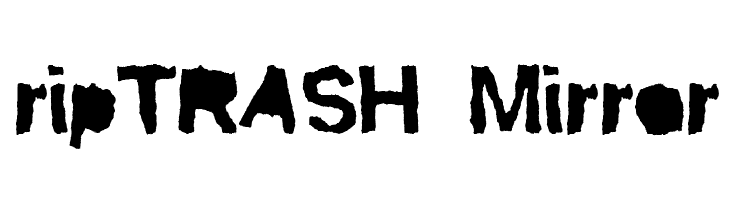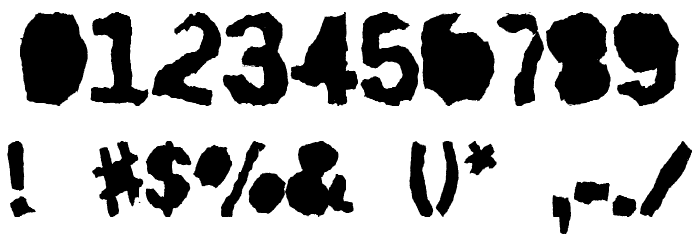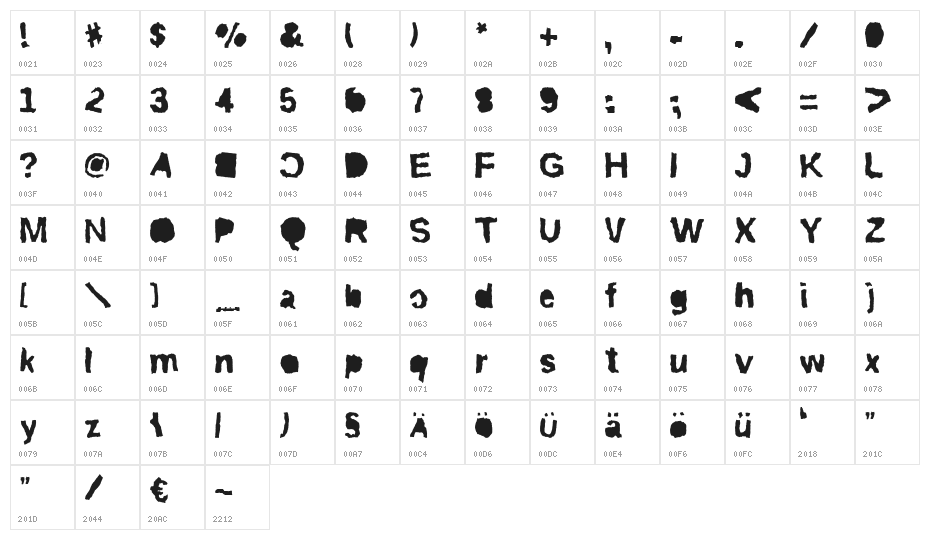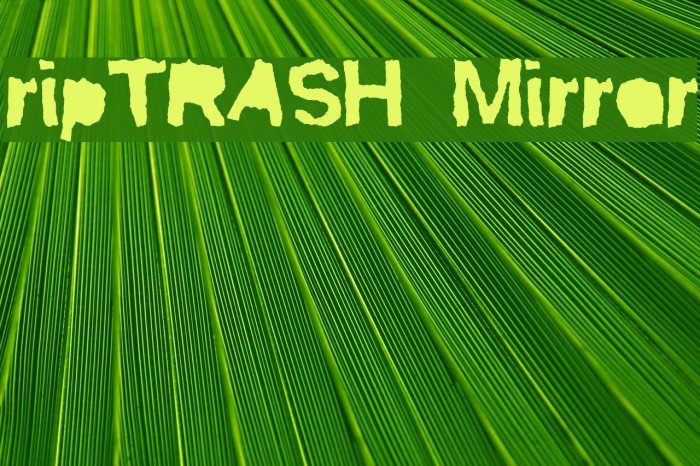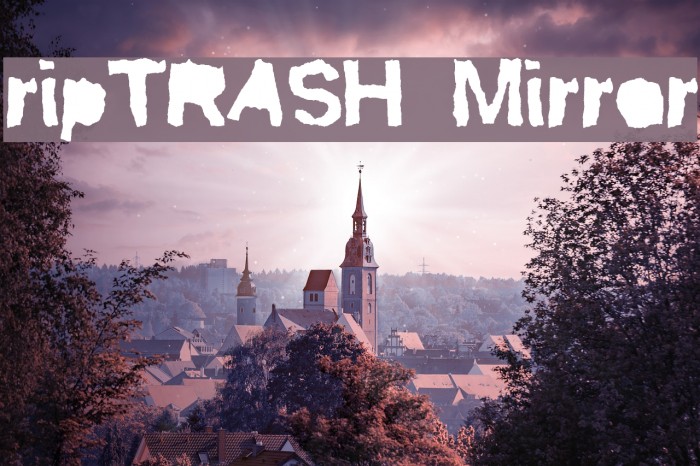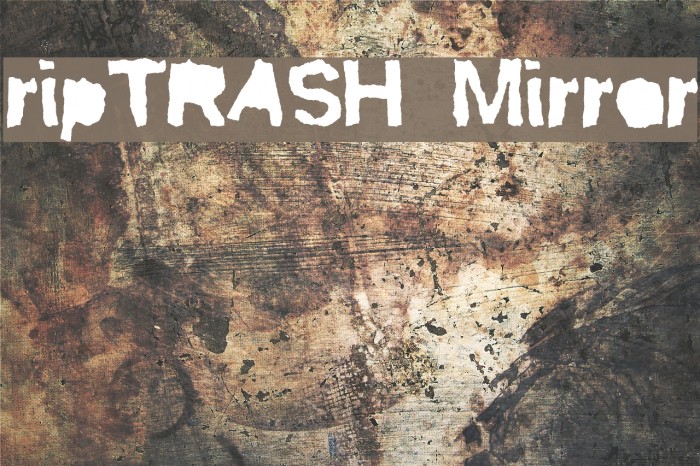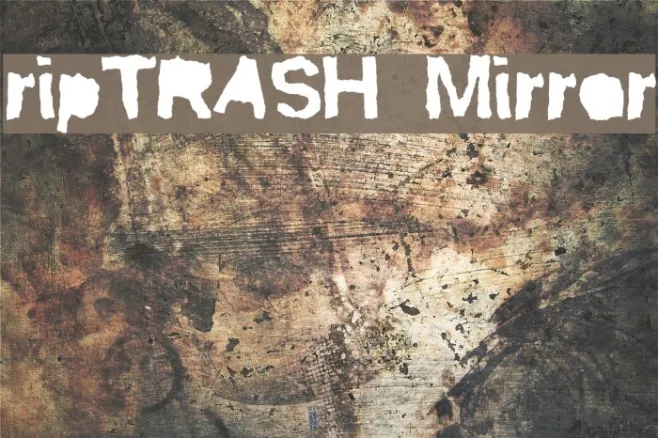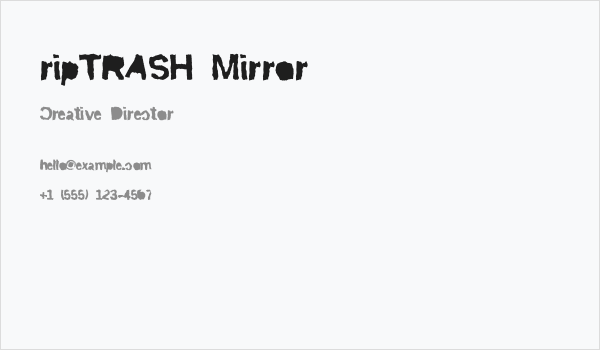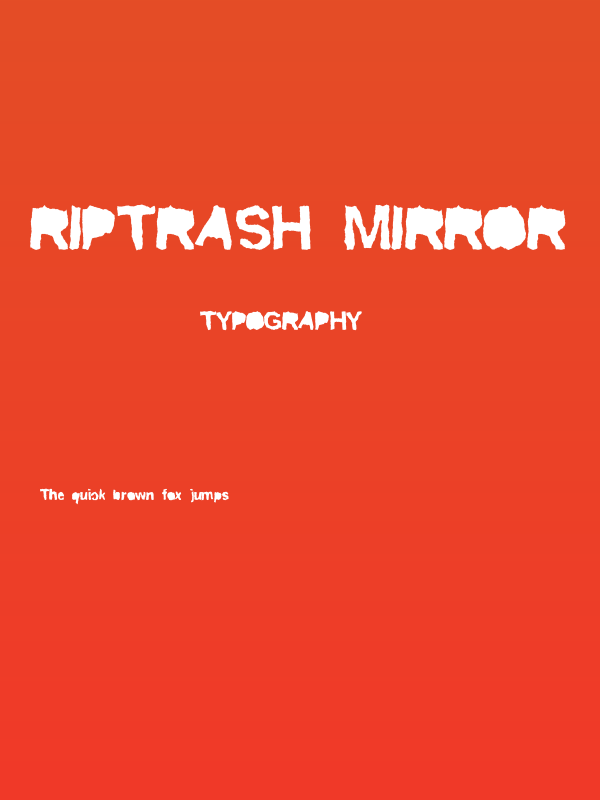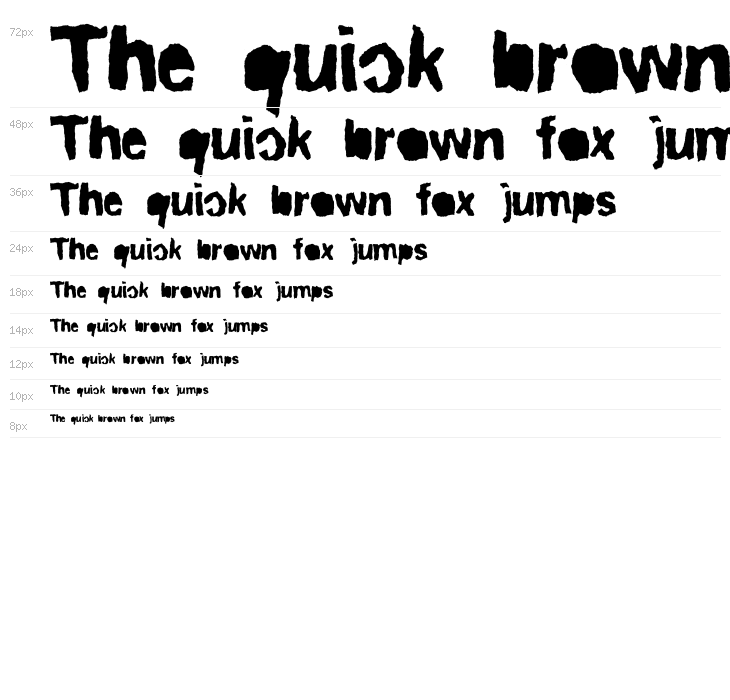
ripTRASH Mirror Font
ripTRASH Mirror Description
This font features a rugged, distressed appearance with irregular edges and a bold, impactful presence. The characters are heavily textured, giving them a hand-crafted, organic feel. The uppercase and lowercase letters maintain a consistent style, with each character appearing as if it has been torn or eroded. The numbers and special characters follow the same aesthetic, ensuring a cohesive look across all elements. This font's unique style makes it stand out, offering a raw and edgy vibe that is both eye-catching and memorable.
| Overall Style | Grunge, Edgy |
| Proposed Projects | Ideal for projects requiring a grunge or punk aesthetic, such as band posters, album covers, or edgy branding materials. |